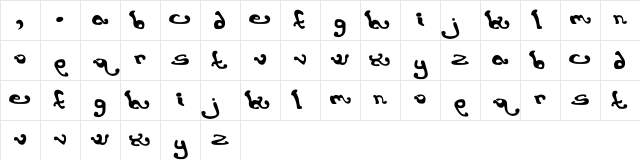
earthling. normal
Style: normal
Year: 1998 (Sun, 15th Mar 1998)
Design Context for earthling.
earthling. is a composed and adaptable typeface that performs quietly and consistently across a wide range of design contexts.